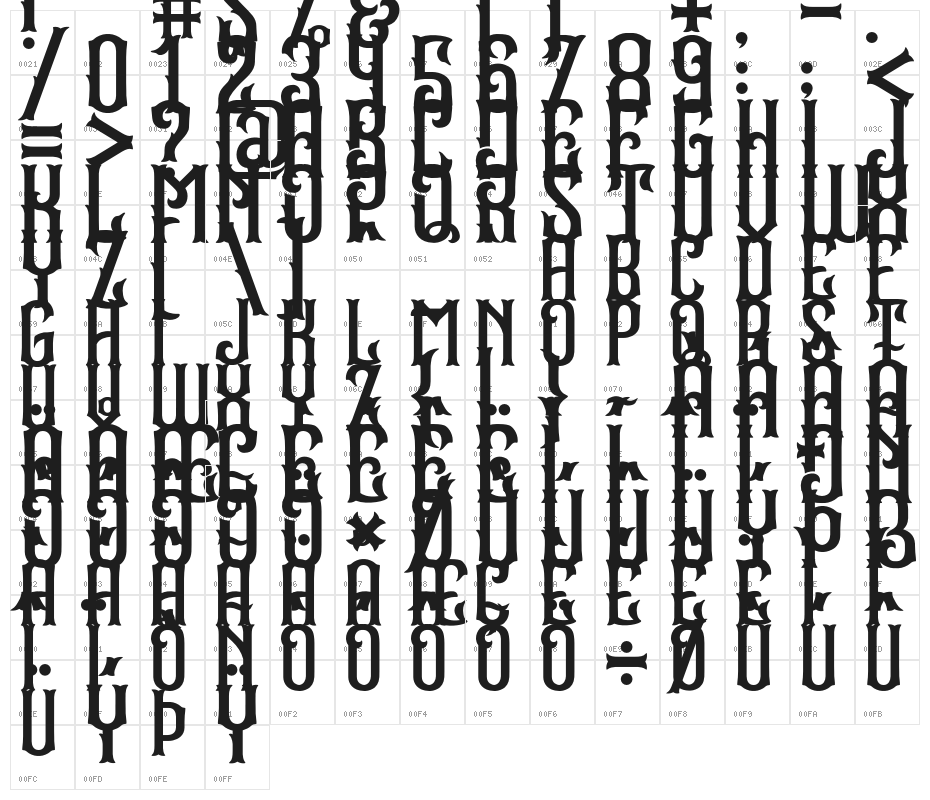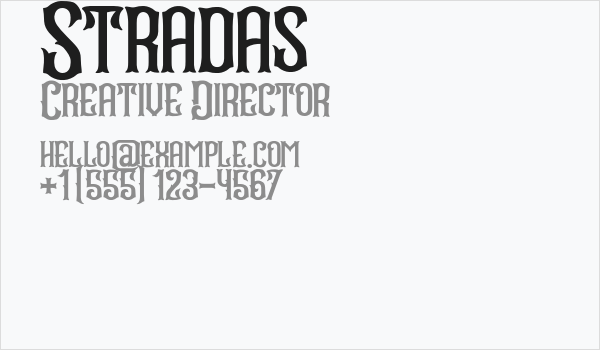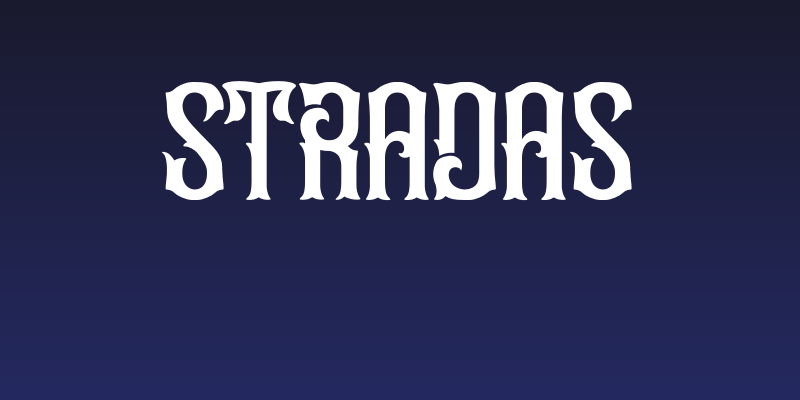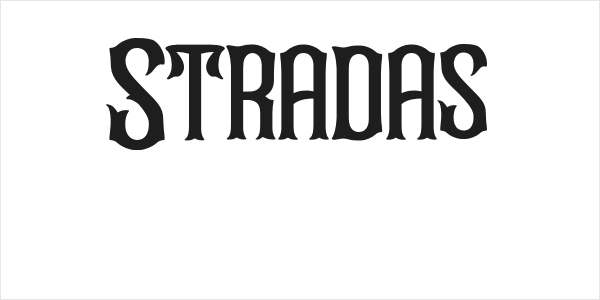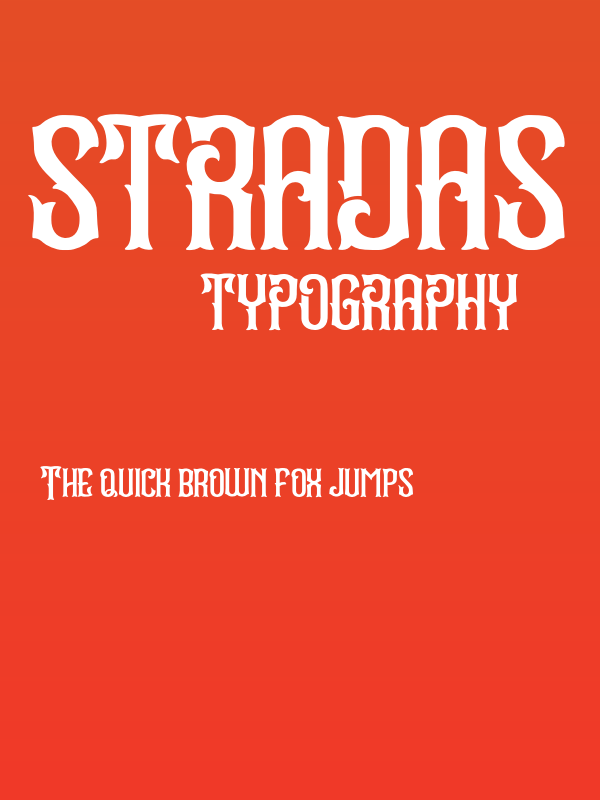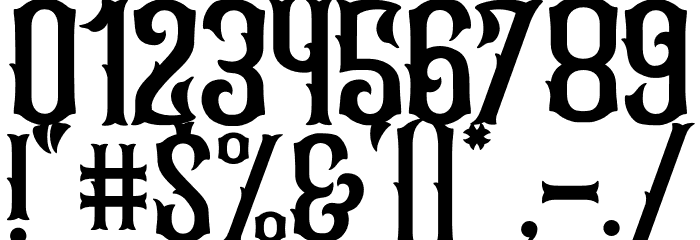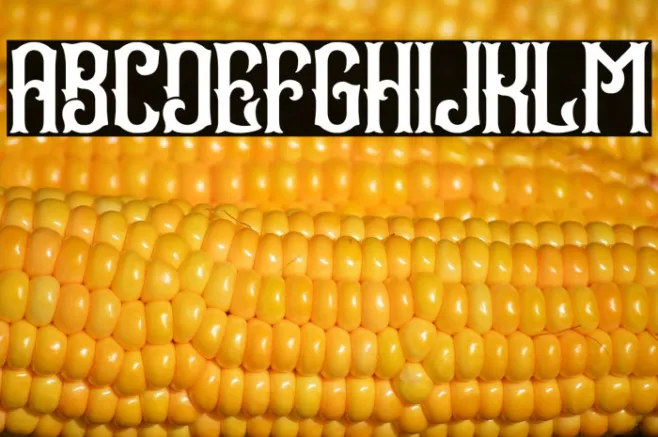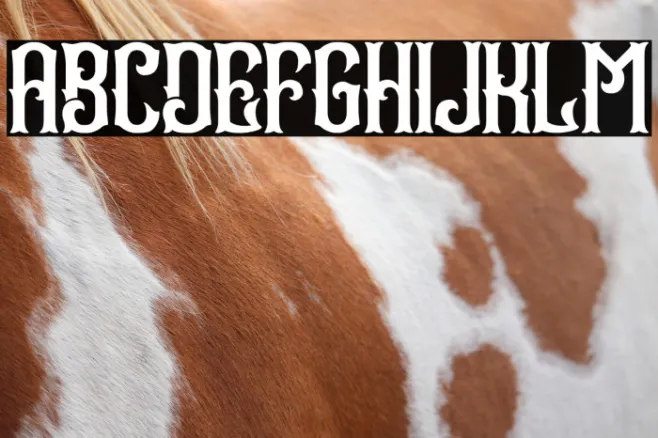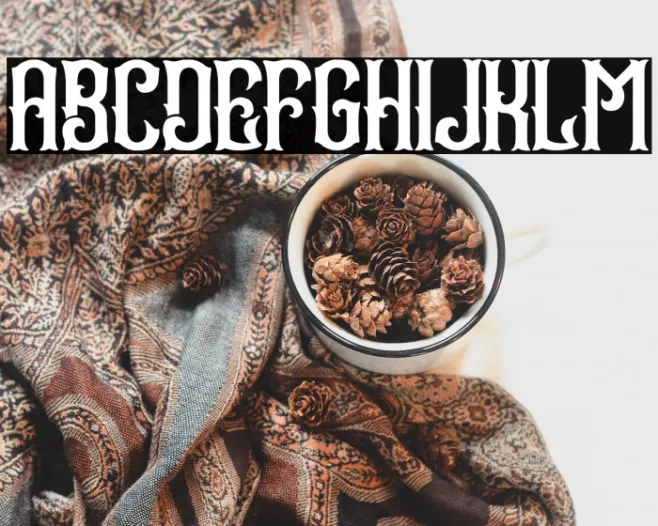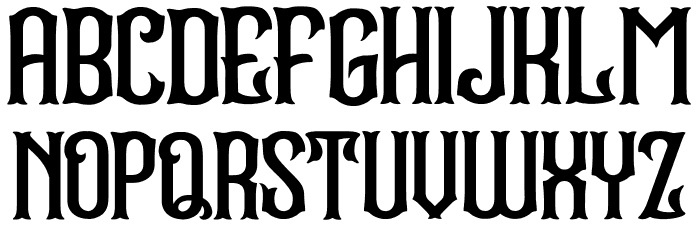
Stradas Font
Stradas Description
This font features a bold and dramatic style with strong, angular lines and a distinct Gothic influence. The uppercase letters are tall and narrow, with sharp serifs and intricate detailing that give them a striking appearance. The lowercase letters maintain the same boldness, with unique flourishes that add to the overall ornate design. Numbers and special characters are equally bold, with consistent styling that complements the alphabet. The font's high contrast in stroke thickness enhances its readability while maintaining its decorative appeal.
| Proposed Projects | Ideal for projects that require a dramatic and eye-catching typeface, such as posters, album covers, branding for edgy or alternative products, and event invitations. |